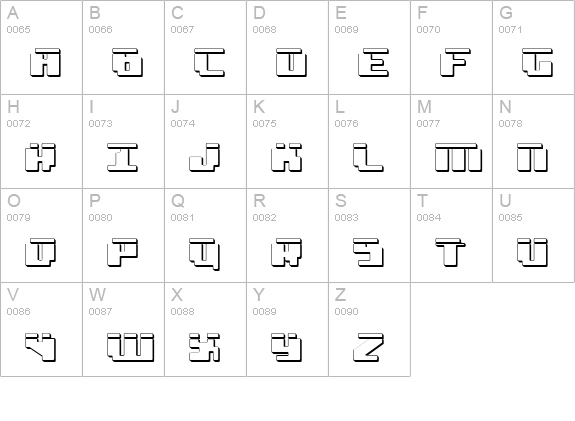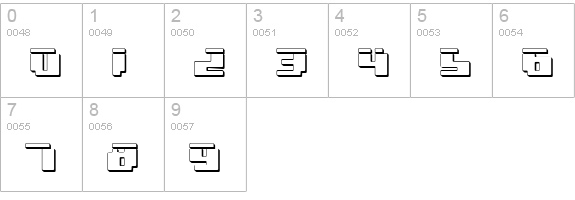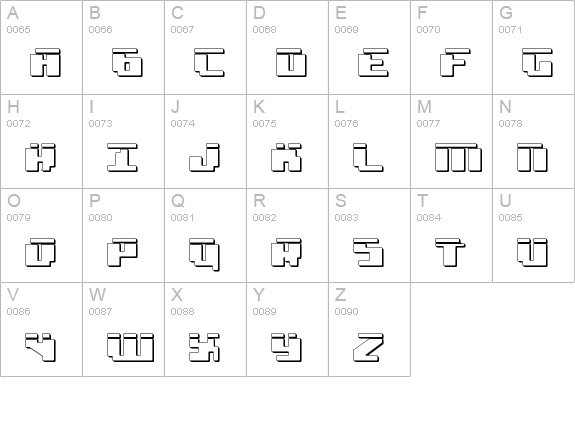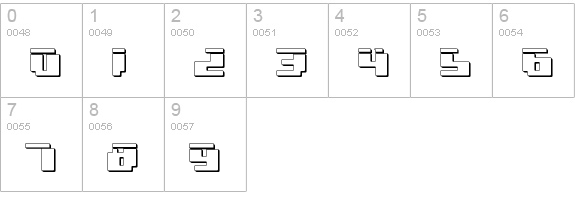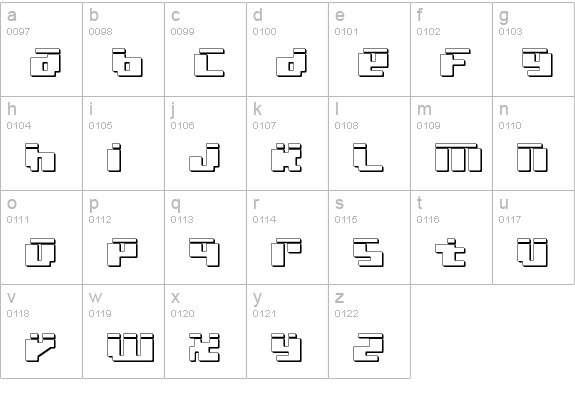
bad robot laser 3d Font Details
Introducing the Bad Robot Laser 3D font, a cutting-edge typeface that brings a futuristic and dynamic touch to your design projects. This font features sharp angles and sleek lines, creating a modern and high-tech look perfect for sci-fi themes, gaming graphics, and tech-related designs. The Bad Robot Laser 3D font is available for free download exclusively at FontsMarket.com. Whether you're a designer looking to add a futuristic flair to your work or a hobbyist wanting to experiment with unique typography, this font is the perfect choice. Embrace the digital age and elevate your designs with the Bad Robot Laser 3D font today!